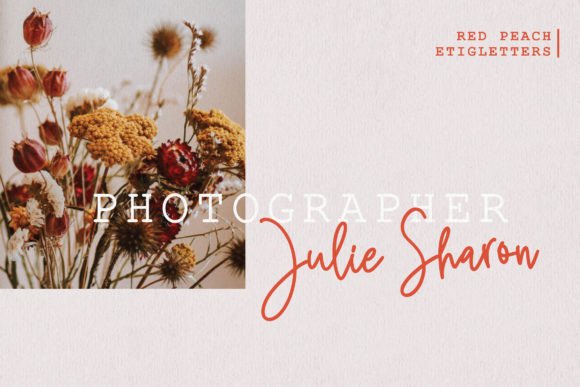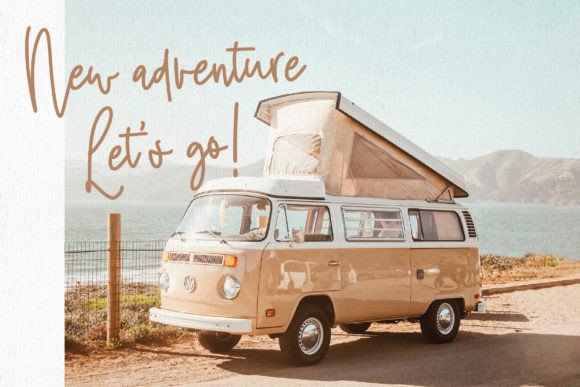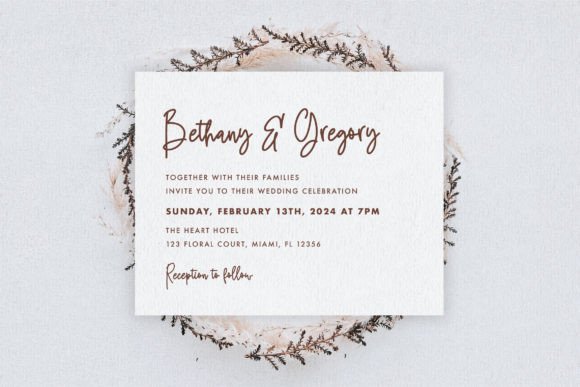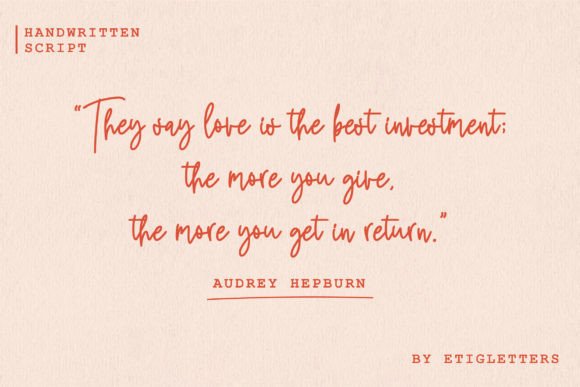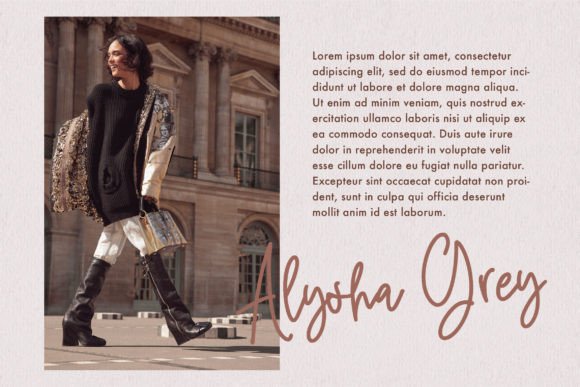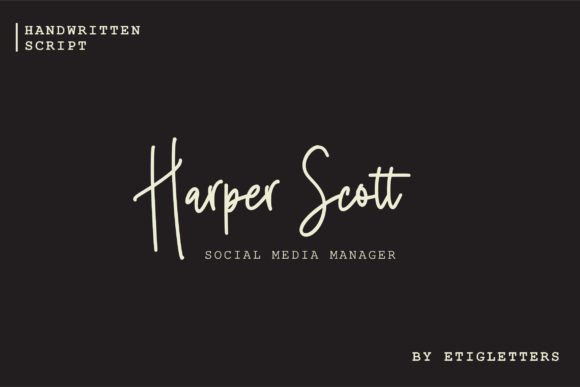
Introduction to Red Peach Font
Red Peach a dazzling script font.
This font is neatly crafted and highly detailed Whatever the topic, this font will be a wonderful asset to your font library, as it has the potential to enhance any creation.
Key Features of Red Peach Font
Why Choose Red Peach Font?
Red Peach Font offers exceptional quality and versatility, making it a valuable addition to your design toolkit. Whether you’re creating for personal projects or commercial use, Red Peach Font delivers professional results.